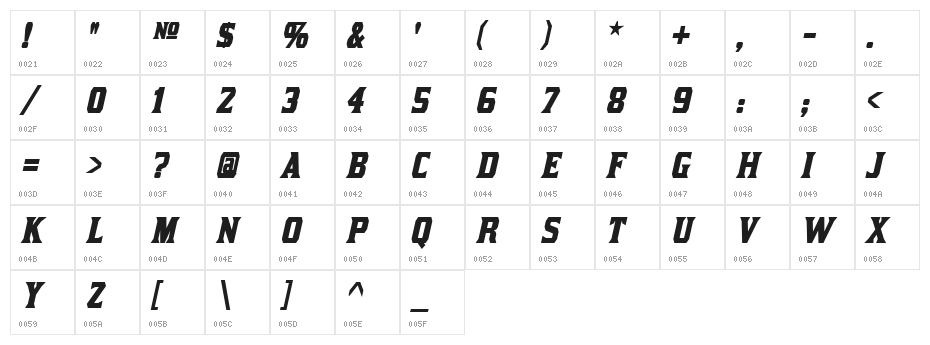
Kirsty Bold Italic Font
Kirsty Bold Italic Description
This bold and italic font features a dynamic and angular design, characterized by sharp edges and a forward-leaning stance. The uppercase and lowercase letters maintain a consistent style, with a strong emphasis on geometric shapes and a sense of movement. The numbers and special characters follow the same bold and angular aesthetic, making the font suitable for attention-grabbing designs. The overall appearance is modern and assertive, ideal for projects that require a strong visual impact.
| Proposed Projects | Ideal for sports branding, action movie posters, dynamic advertisements, and any project needing a bold statement. |